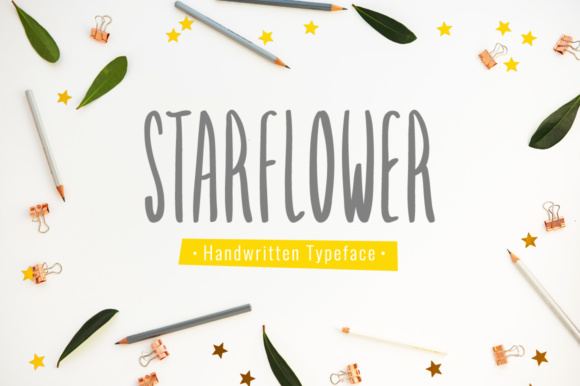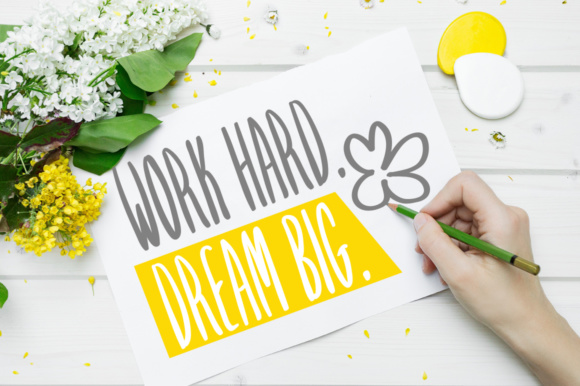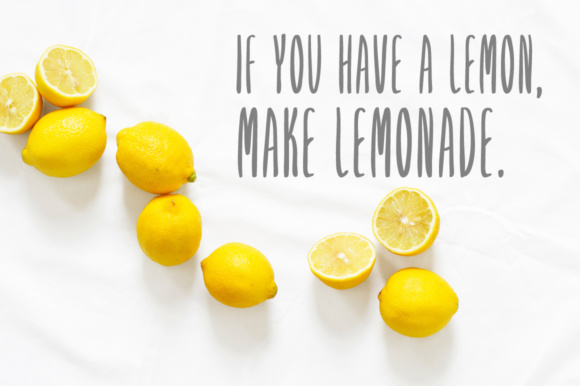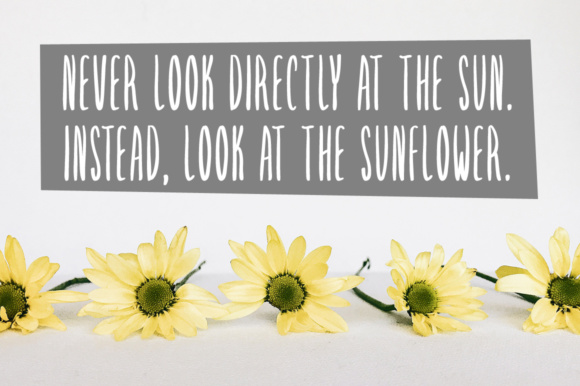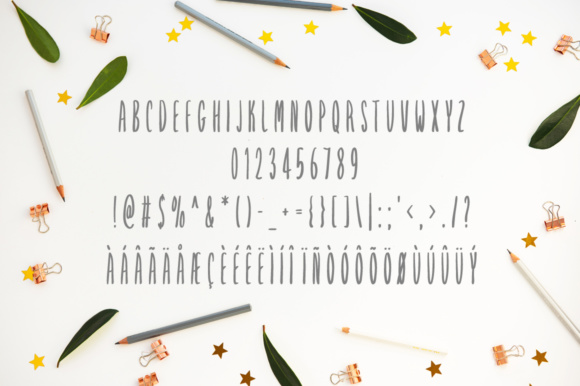
Starflower Font
About Starflower Font
Starflower is a brand new handwritten font. Starflower is perfectly suited for stationery, logos, t-shirts, papers, print designs, website headers, photo frames, flyers, music covers, posters, image sliders and much more!